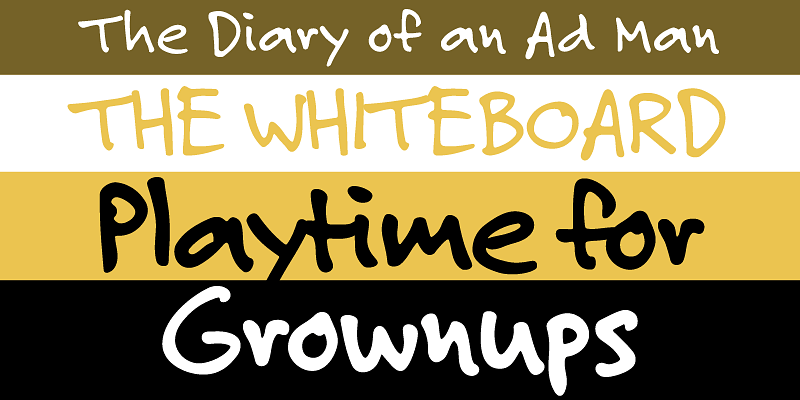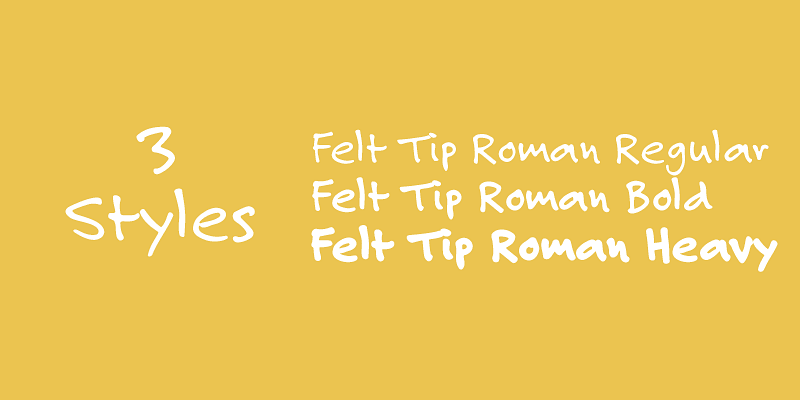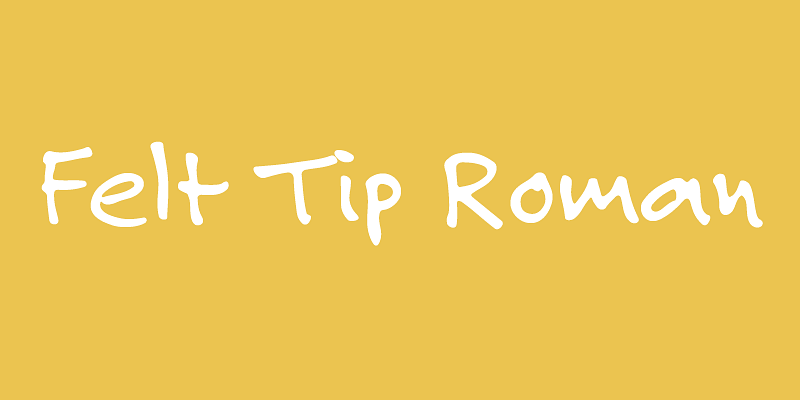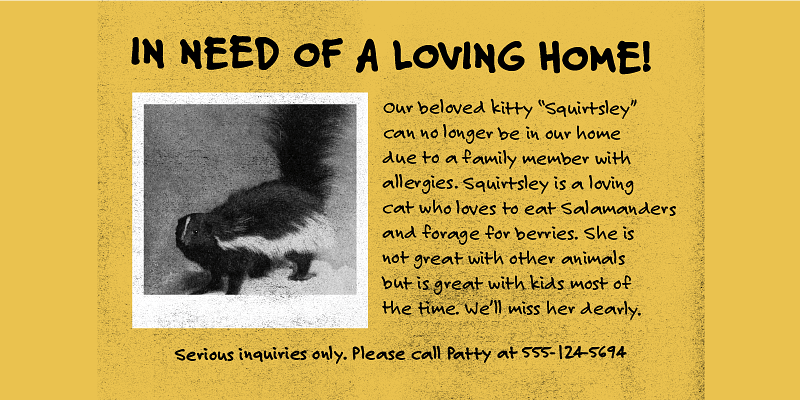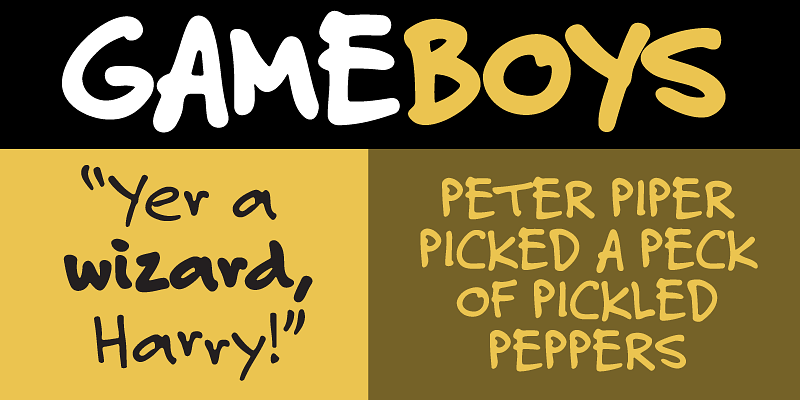
Felt Tip Roman (1992, 2003) is one of my most popular fonts, and the first font I ever released. It’s my own handwriting carefully digitized by hand (not auto-traced). Handwriting fonts are very common now, but they weren’t in 1989 when I started working on it. I just wanted to see what it would look like, not imagining that other people might want to use it. (Thank you, Mark Solsburg of FontHaus for encouraging me to release it.) I added two more weights, Bold and Heavy, in 2003 to create a more versatile set of fonts.